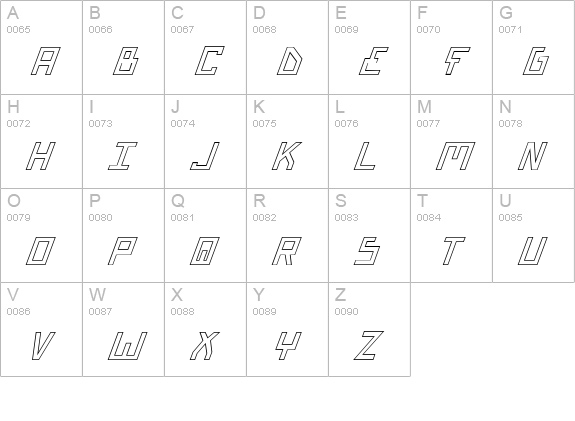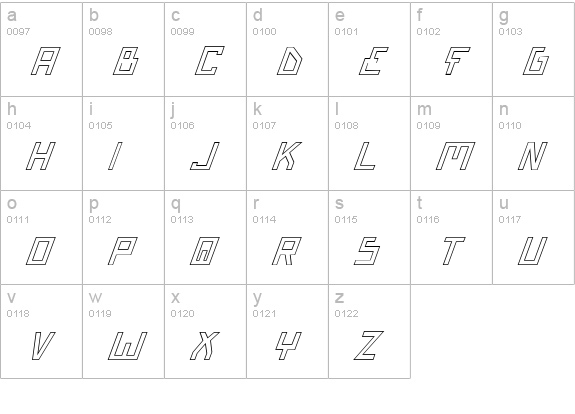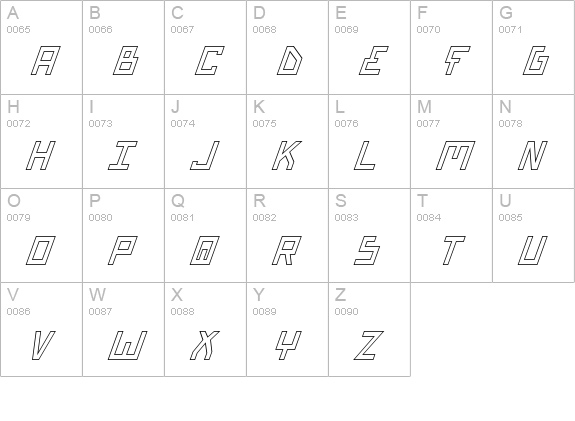
Bionic Type Out Italic is a distinctive, italic variant in the Bionic typeface family \xE2\x80\x94 well suited to design and typography projects.
Introducing Bionic Type Out Italic font - a sleek and futuristic typeface that blends modernity with a hint of technological sophistication. Its italic style exudes a sense of dynamic energy, making it perfect for projects that require a touch of boldness and innovation. The sharp lines and distinct angles of this font give it a distinctive edge, setting it apart from traditional typefaces. What's more, Bionic Type Out Italic font is available for free download at FontsMarket.com. This means you can easily add this eye-catching font to your design arsenal without any cost. Whether you're working on branding, web design, or any other creative project, Bionic Type Out Italic font is sure to make a statement and elevate your work to the next level. Don't miss out on the opportunity to enhance your designs with this cutting-edge font - download it for free today!